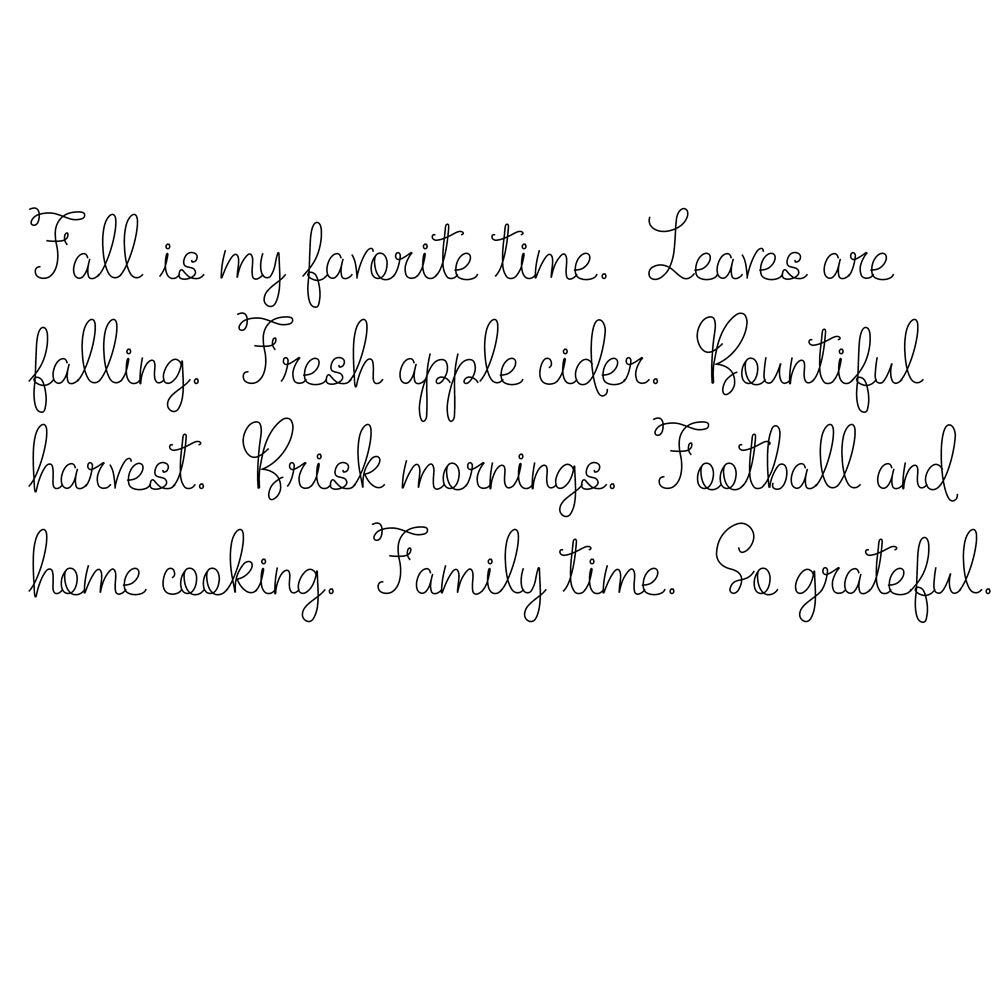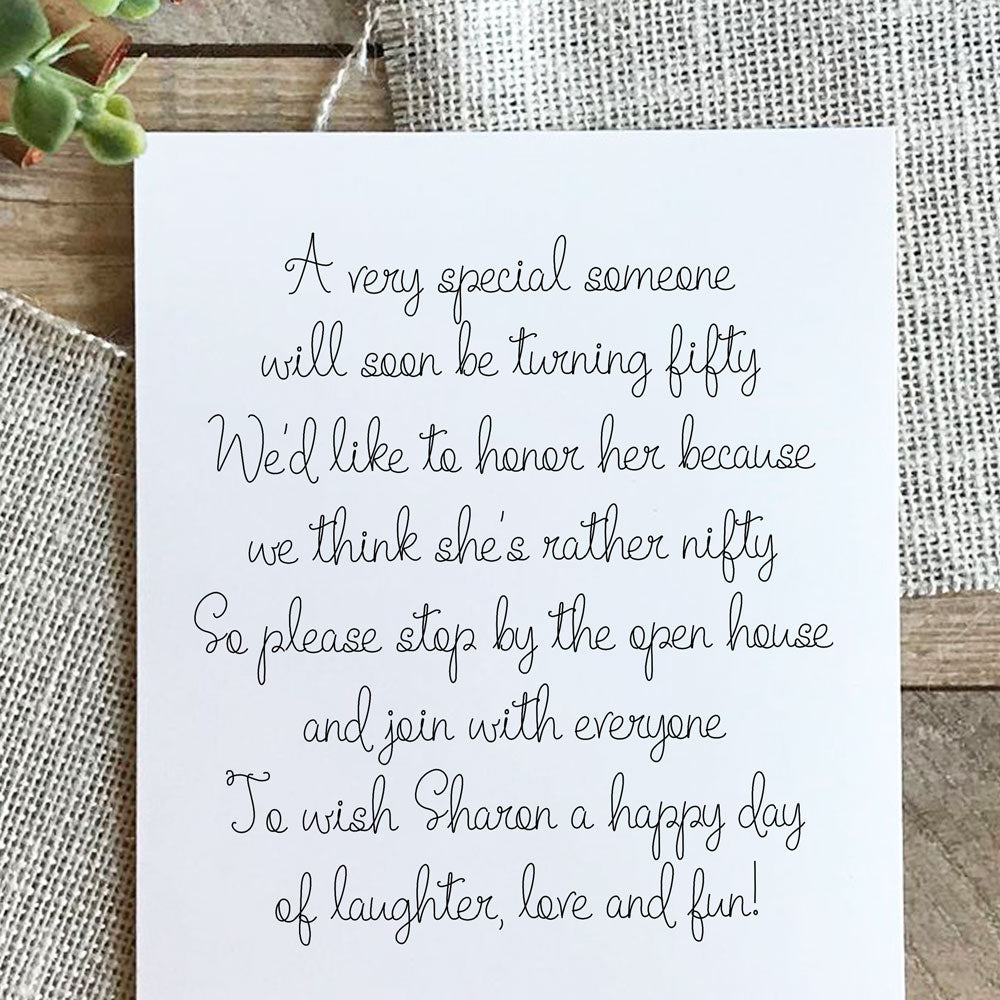
SLF Hand Lettered – Realistic Single Line Script for Foil Quill & Engraving
SLF Hand Lettered is a realistic single line script font with the look of true hand lettering—classy, personal, and easy to read. It’s perfect for cards, Foil Quill projects, jewelry engraving, and any project where you want an authentic hand-written feel.
This monoline font includes a complete character set (see photos for the full set).
• Foil Quill lettering and pen projects
• Greeting cards, stationery, and personalized gifts